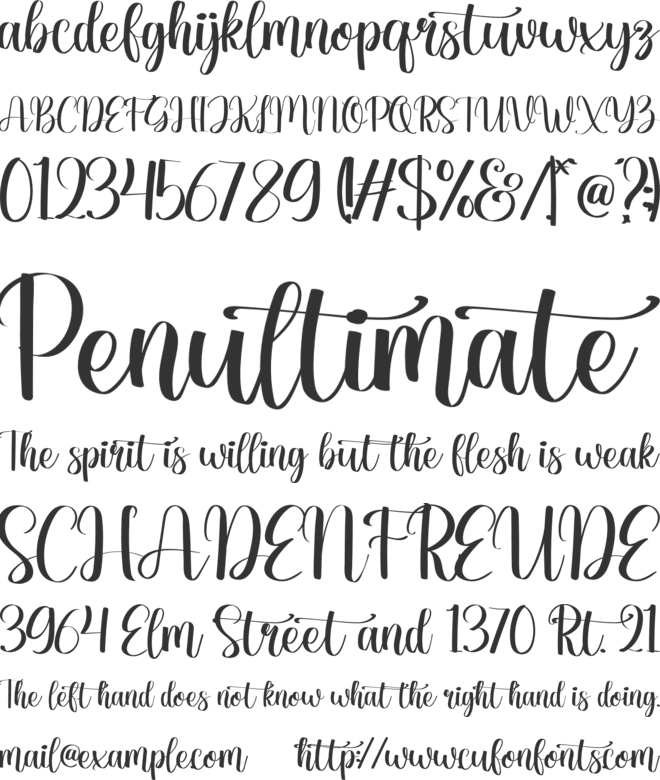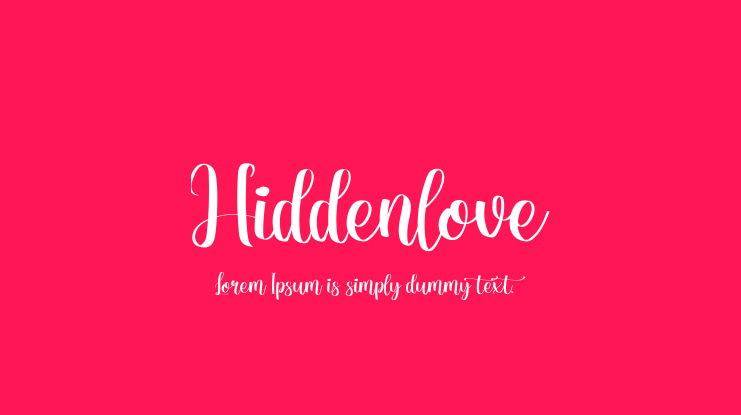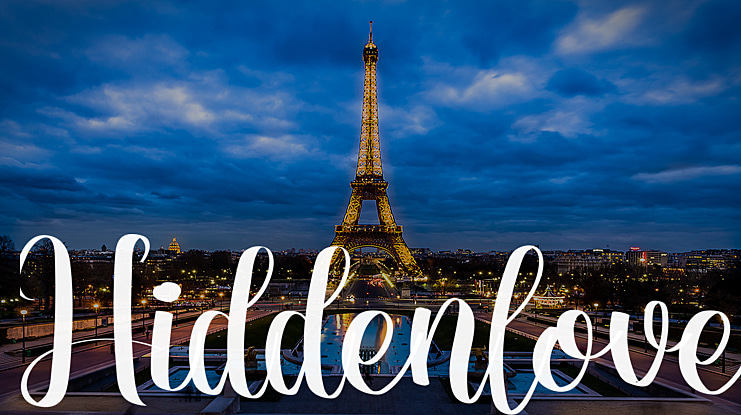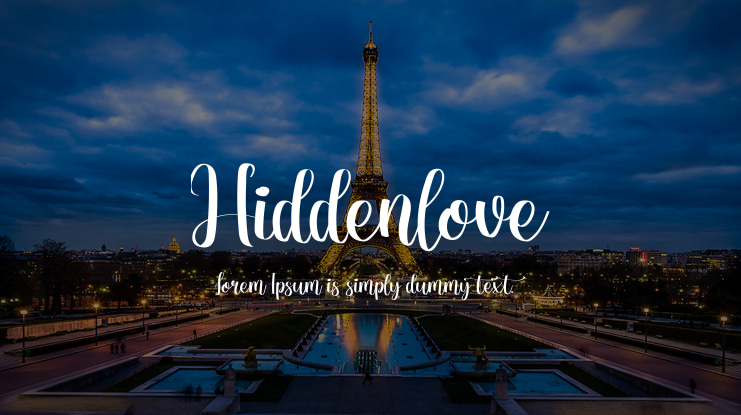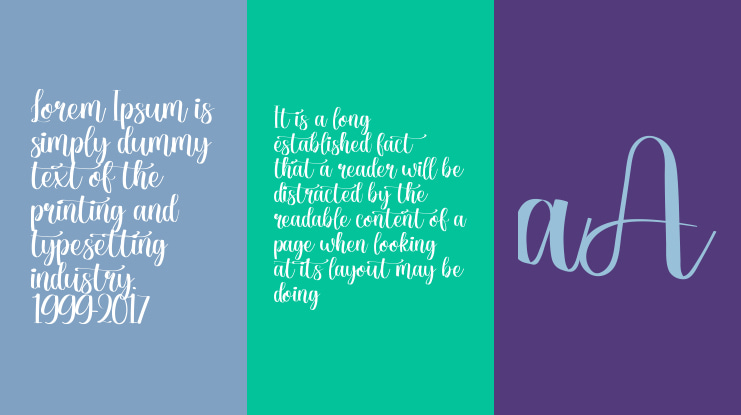
Hiddenlove Font
Here we go, let me introduce our new font "hiddenlove" chic script calligraphy font
Suitable for your romantic project
you can use hiddenlove tail and hiddenlove love tail in alternate